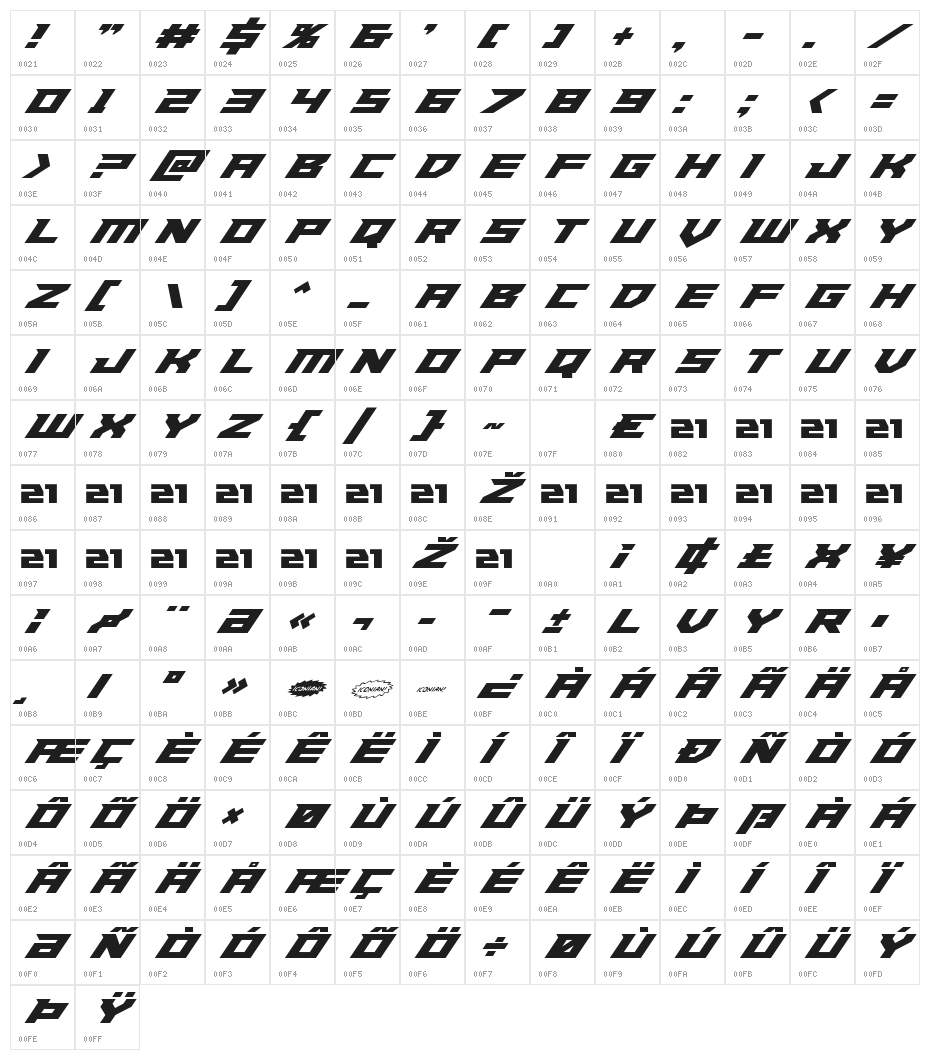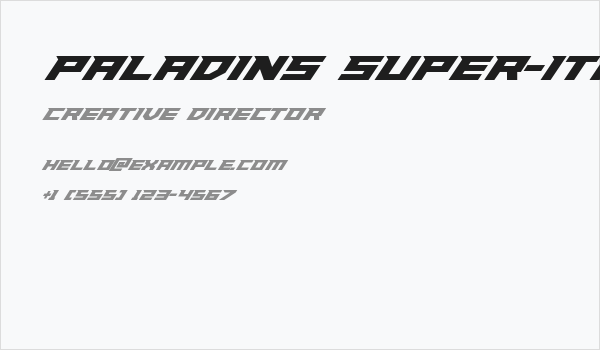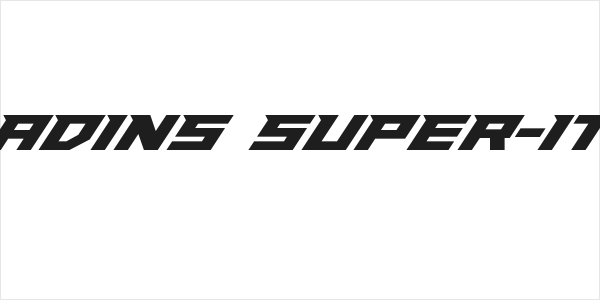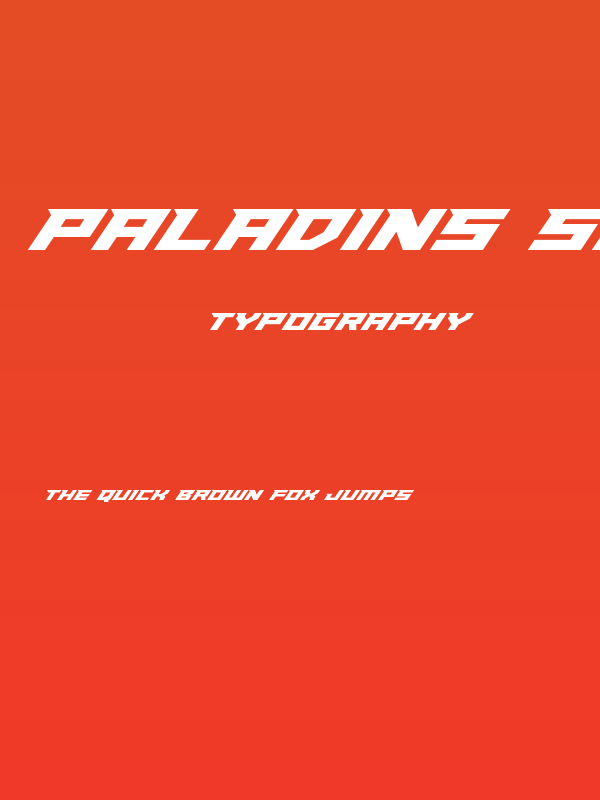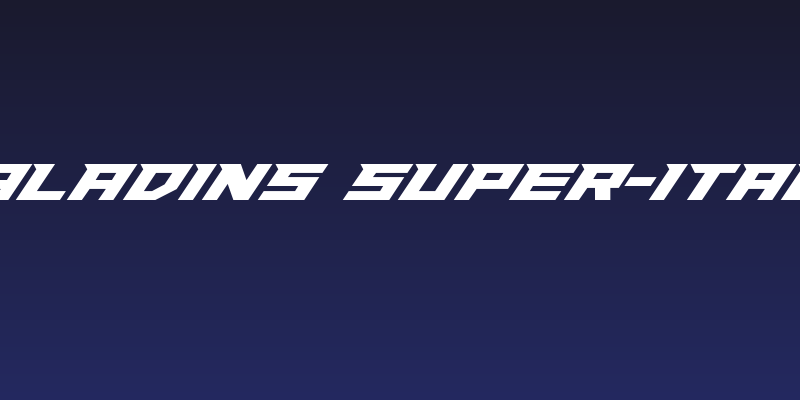
Paladins Super-Italic Font
Paladins Super-Italic Description
This font features a bold, italicized style with a futuristic and dynamic appearance. The characters are sharply angled, giving a sense of motion and energy. The strokes are thick and consistent, providing a strong visual impact. The design is clean and modern, with a slightly condensed width that enhances its sleek look. The character spacing is tight, contributing to its compact and cohesive feel. This font is ideal for projects that require a bold statement, such as sports branding, video game titles, or dynamic posters.
| Proposed Projects | Ideal for sports branding, video game titles, dynamic posters, and modern advertising. |